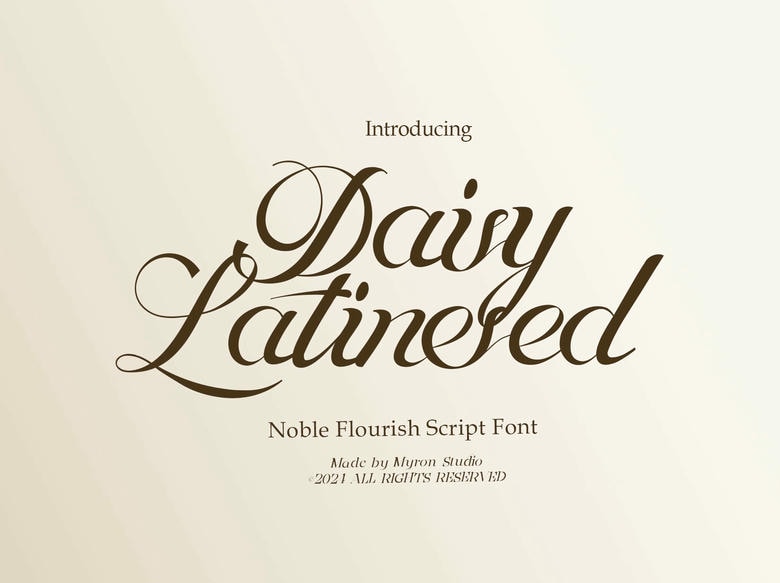
Daisy Latinesed Font
Daisy Latinesed is a designed to create a luxurious yet modern impression. With bold yet graceful characters, “Daisy Latinesed” is perfect for various design projects that desire an elegant touch, such as wedding invitations, luxury product branding, and packaging decoration.
Using “Daisy Latinesed” will convey a professional and sophisticated vibe, with each letter harmoniously flowing in a smooth handwritten style. This combination provides a classic yet contemporary look, perfect for anyone seeking a font with a luxury and elegant feel.
Suitable for: logos, invitations, greeting cards, premium product packaging, and design projects that prioritize aesthetics and elegance.
Daisy Latinesed Script Font